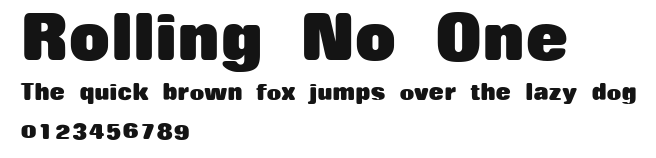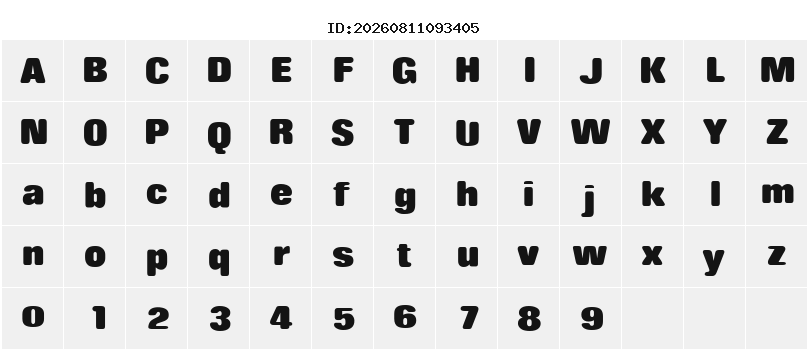
Rolling No One Preview
• Font Name: Rolling No One
• Font ID: RollingNoOne-ExtraBold
• Full Font Name: Rolling No One ExtraBold
• PostScript Name: RollingNoOne-ExtraBold
About Rolling No One.ttf
Rolling No One.ttf is a modern, elegant sans-serif font designed for ultimate readability and visual harmony. Perfect for branding, headlines, web design, and print materials.